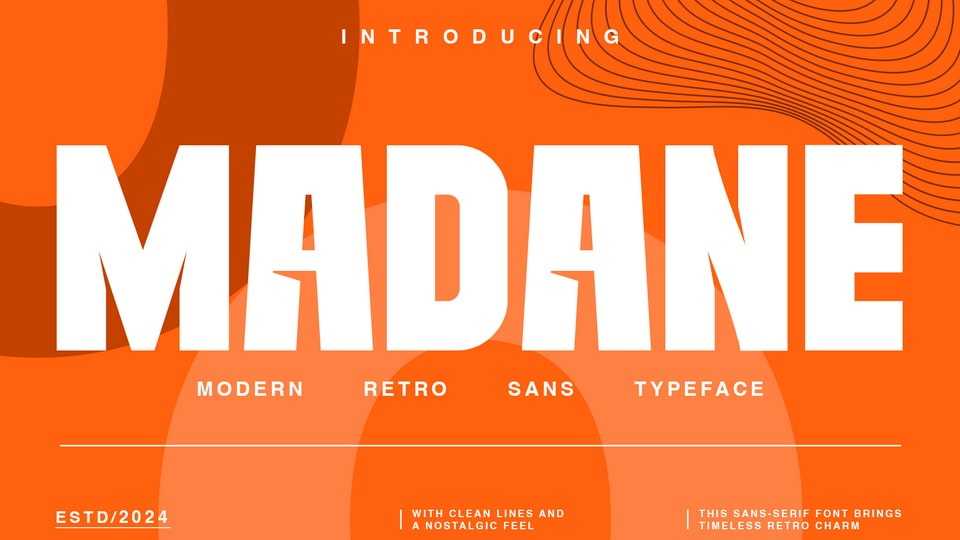
Download Madane typeface, a modern sans serif typeface with a bold design, perfect for any awesome projects that need masculine taste.
Designer: Kangfont Studio